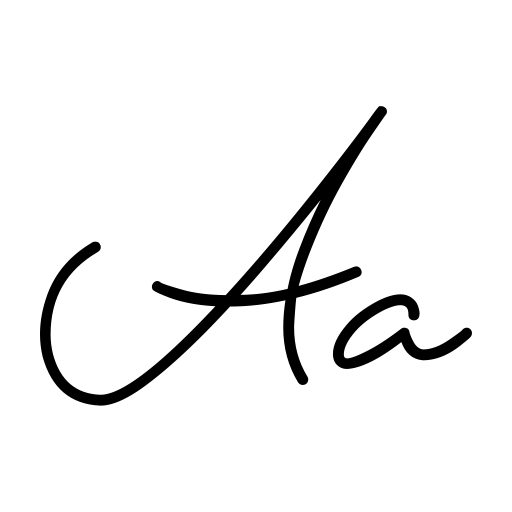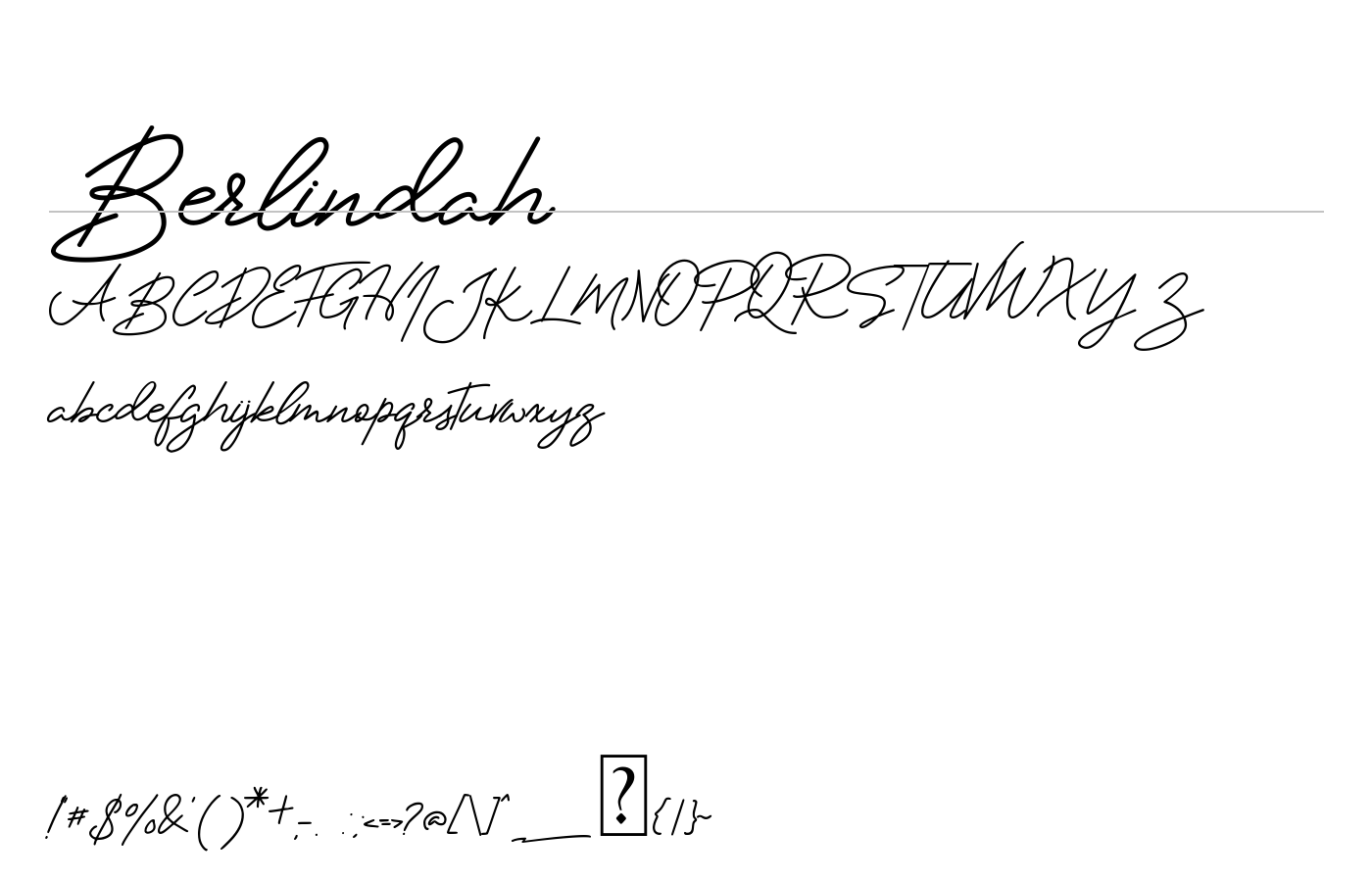
Berlindah is a delicate, elegant script font featuring thin, flowing strokes that mimic natural handwriting with a refined touch. Its tall, slender letterforms and smooth connections create a sophisticated and graceful feel, making it ideal for personal branding, invitations, and stylish logos where a light, artistic expression is desired. This font works best in designs that seek to convey elegance and individuality with a modern, handwritten charm.
Berlindah Font
About Berlindah Font
| Font family | Berlindah Font |
| Designer | JunCreative (Muhamad Junaid) @mjart96 |